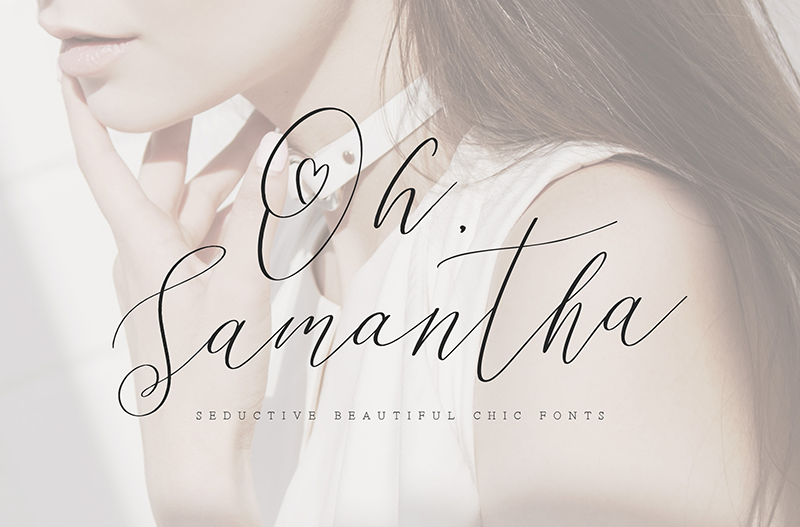
Free Oh Samantha Font
Introducing you to the absolutely beautiful free oh samantha font. This typeface file was found from the amazing source called Font Space. Showcase your designs like a graphic design pro by adding a new touch with this fancy font.